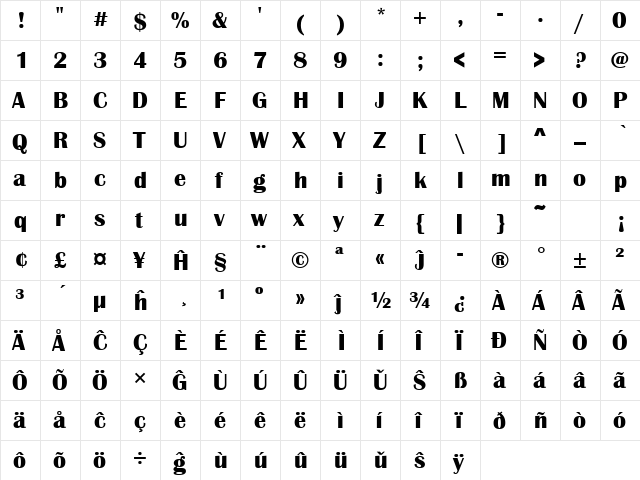
Britannic Eo Bold Bold
Design Context for Britannic Eo Bold Typeface
Britannic Eo Bold takes a measured approach to typography — its balanced proportions and neutral character make it a reliable workhorse for both digital and print work. The heavy weight commands attention and anchors typographic hierarchies.
Pro Tip: Use Britannic Eo Bold in both headline and body roles to test its range before committing to a single application.